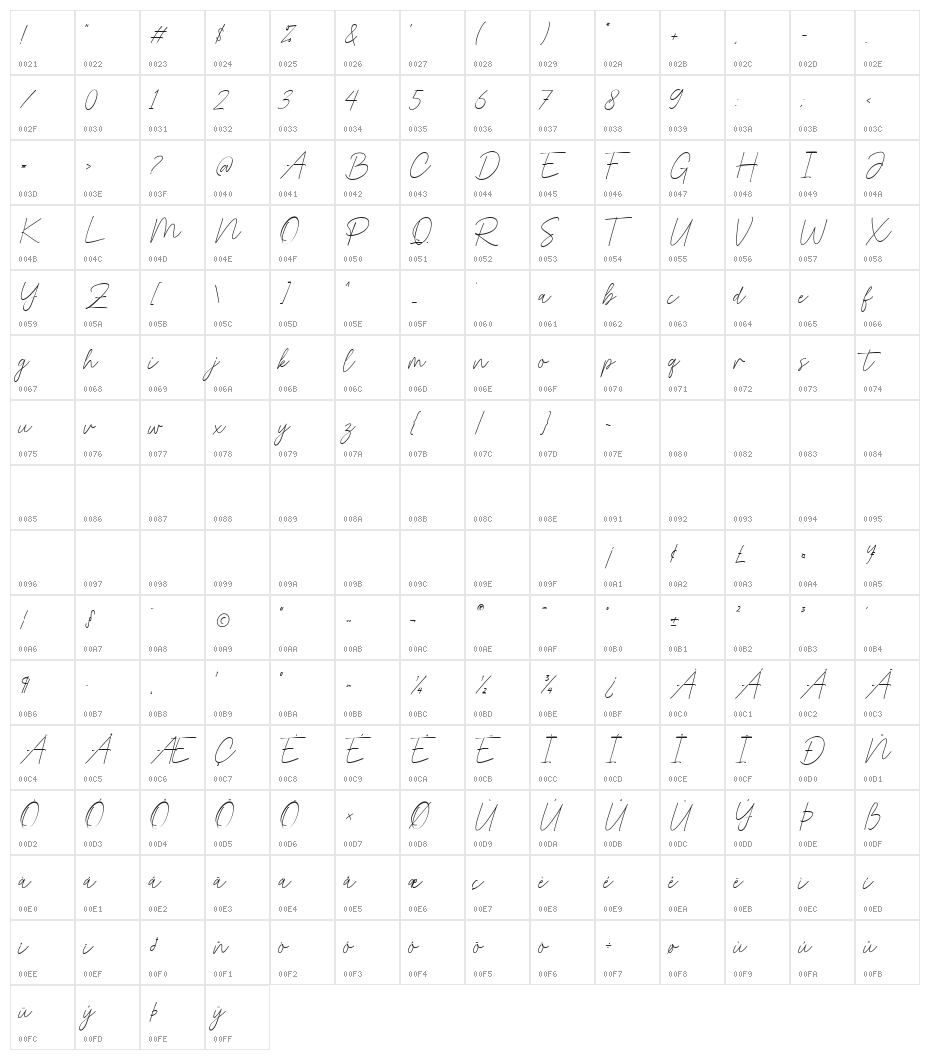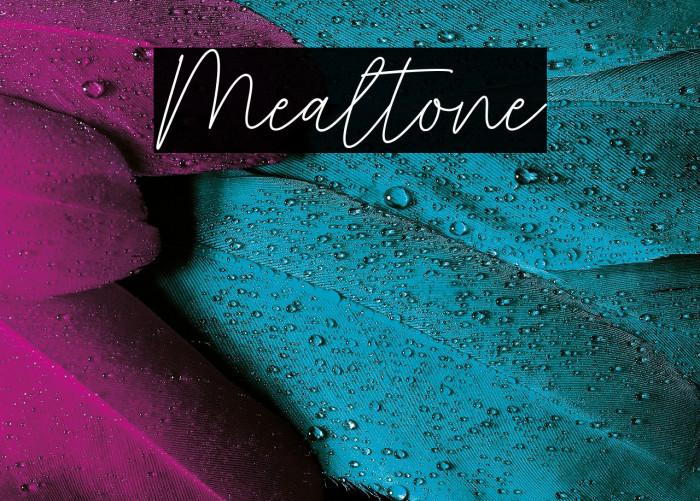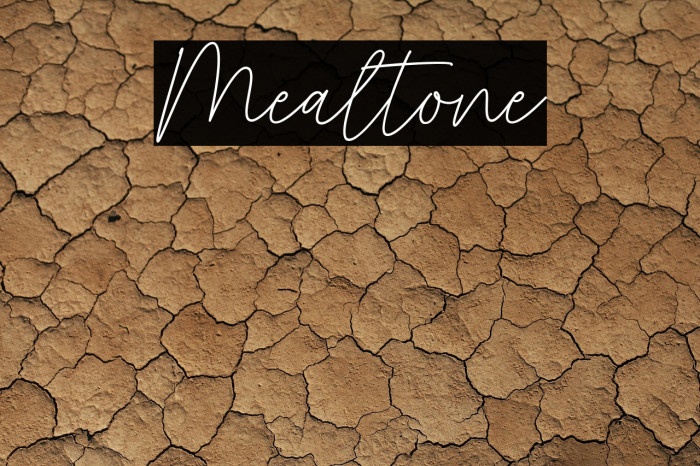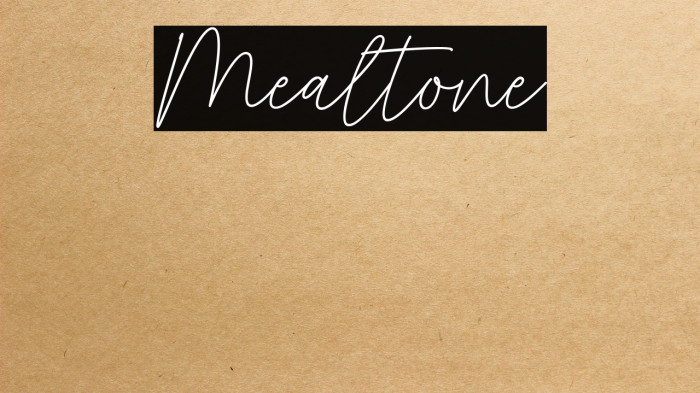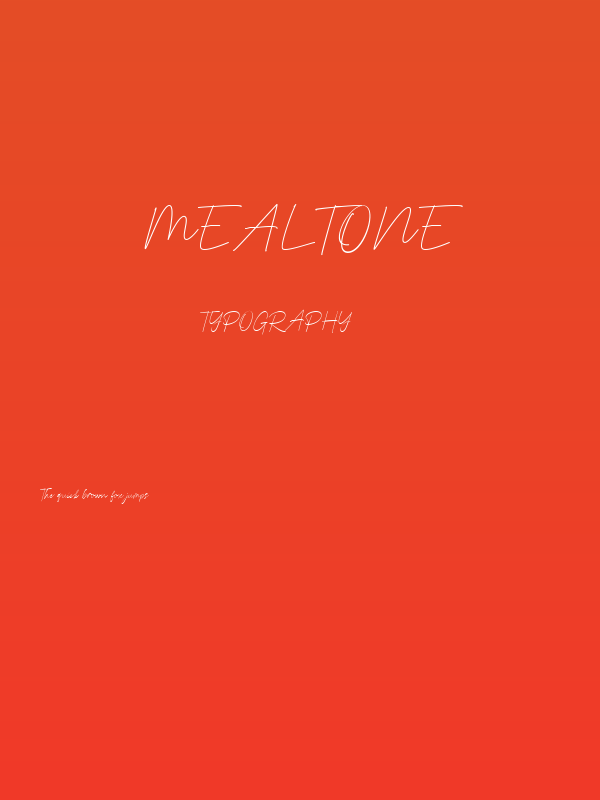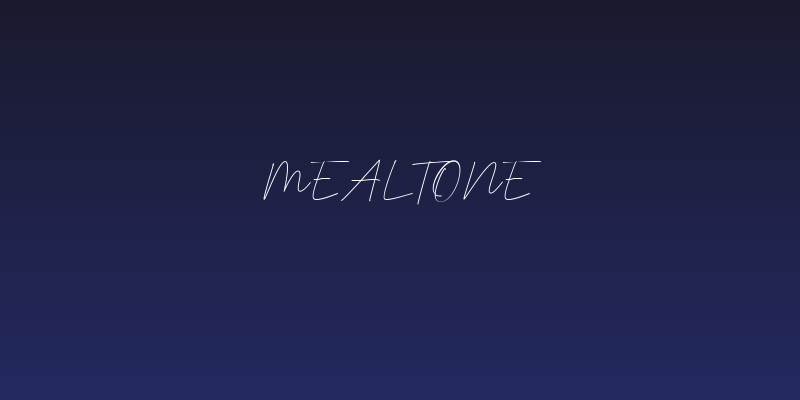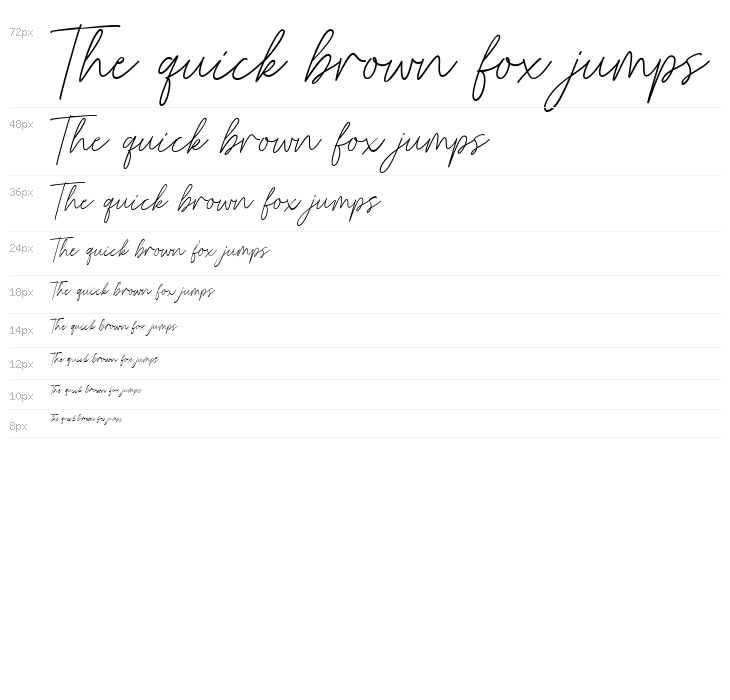
Mealtone Font
Mealtone Description
A flowing, handwritten script font with a modern and elegant style, featuring smooth, connected letters and a light stroke weight.
| Use Case | Logos, Invitations, Headlines |
| Proposed Projects | Wedding invitations, greeting cards, personal branding. |